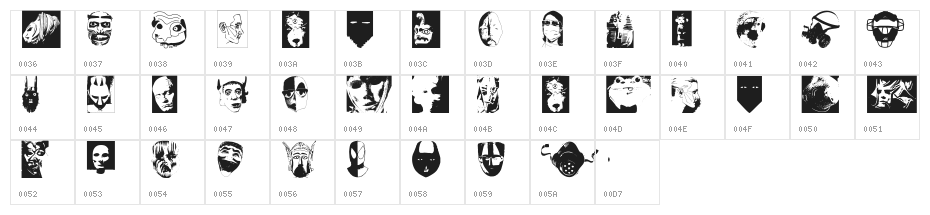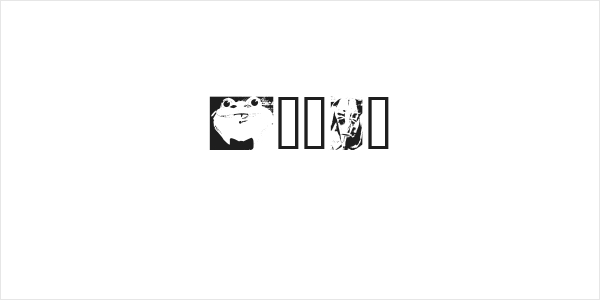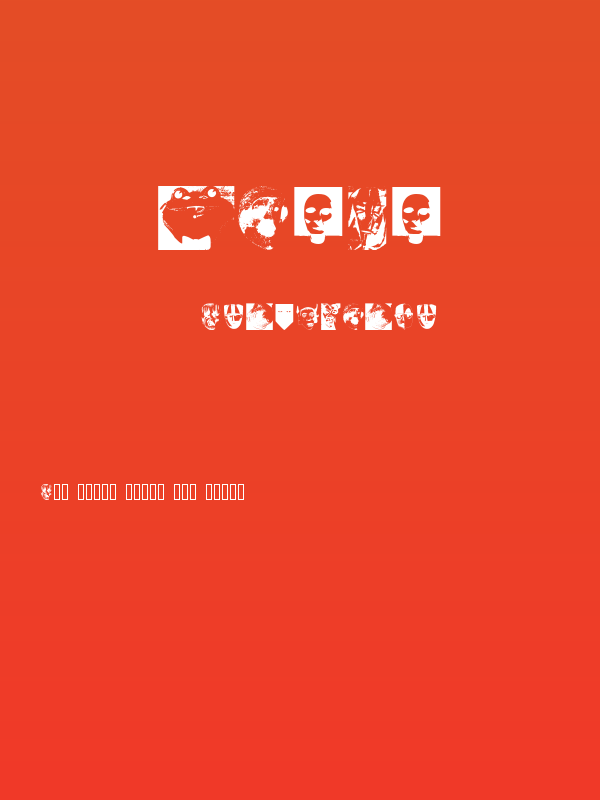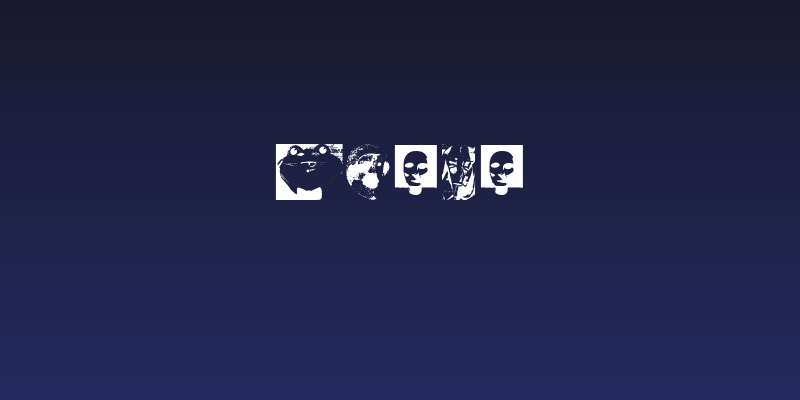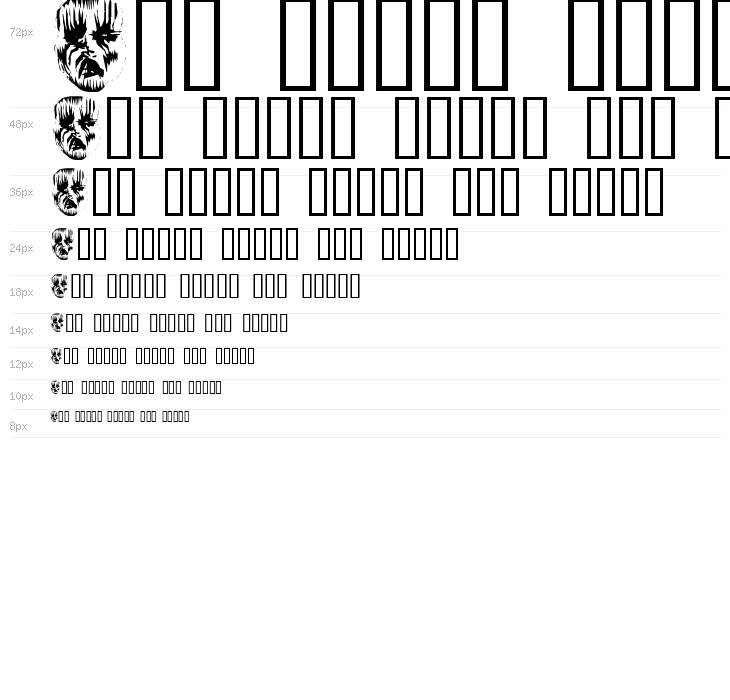
MasKs Font
MasKs Description
A highly decorative display font featuring stylized black-and-white illustrations of various masked faces and characters as glyphs, with each letter or symbol represented by a unique mask design. The font is bold, with high contrast between thick black shapes and white negative space, and the glyphs are generally square or rectangular in proportion.
Overall StyleDecorative, Comic, Thematic
Use CaseHeadlines, Logos, Posters, Themed graphics
Proposed ProjectsPosters, comic book titles, themed event invitations, album covers, Halloween or masquerade party materials.